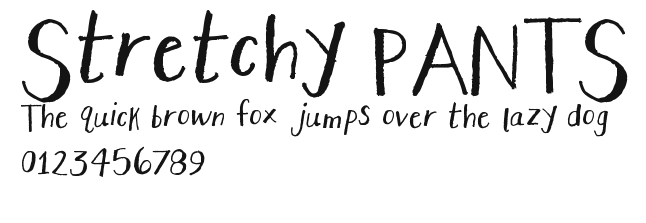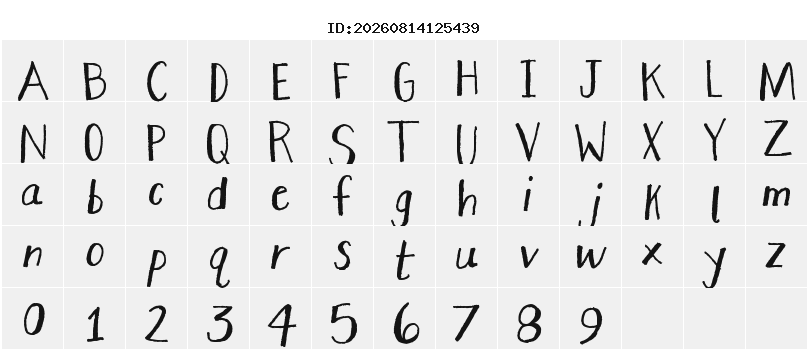
• Font Name: Stretchy PANTS
• Full Font Name: Stretchy PANTS
• Version: Version 1.00 January 24, 2014, initial release
Stretchy PANTS.ttf is a modern, elegant sans-serif font designed for ultimate readability and visual harmony. Perfect for branding, headlines, web design, and print materials.